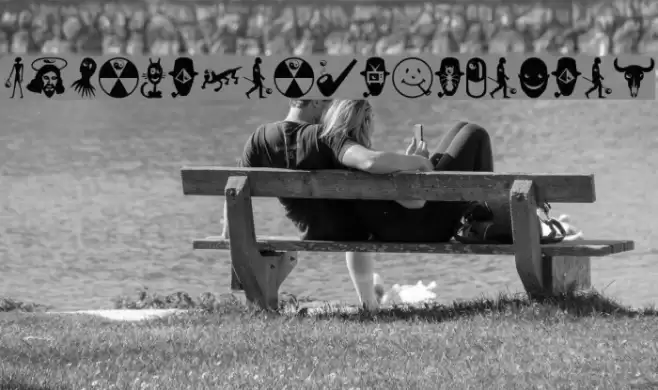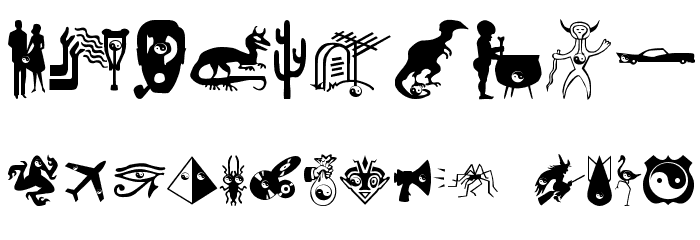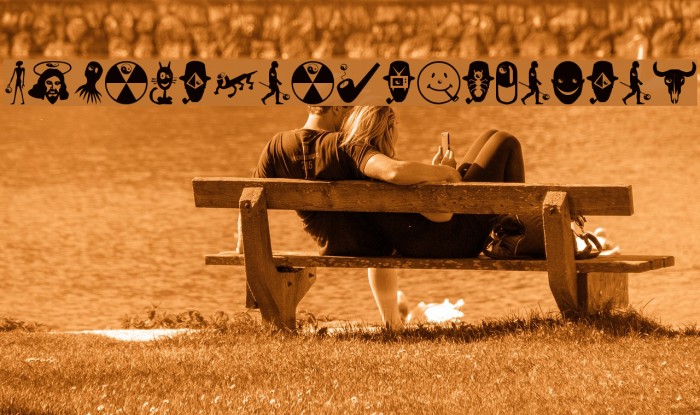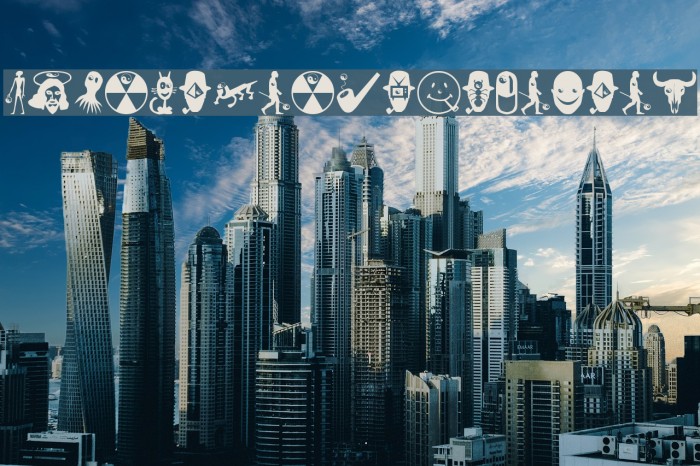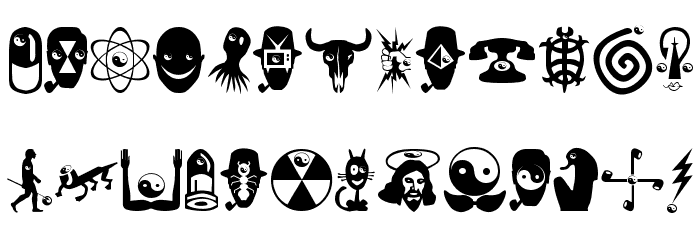
QuestionsOfBranding Font
QuestionsOfBranding Description
A highly decorative and eclectic dingbat font composed of unique, surreal, and whimsical pictograms, each character representing a distinct illustration or symbol rather than traditional letterforms. The icons are bold, detailed, and vary in complexity, often combining elements of pop culture, science, mythology, and abstract art.
A creative pictogram font with diverse, surreal icons for each character from Uncategorized fonts.
- Proposed Projects: Poster art, album covers, branding for creative agencies, editorial illustrations, zines, event flyers, and experimental graphic design.
- Overall Style: Decorative, Surreal, Artistic
- Use Case: Logos, Posters, Illustrations, Branding, Editorial Graphics